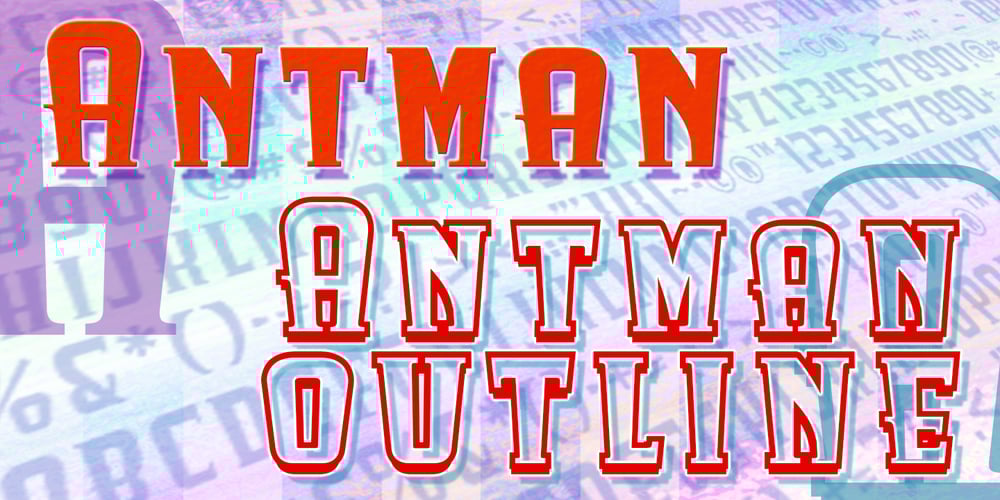
Antman Font Family was designed by James A. Lebbad and published by Lebbad Design. Antman contains 2 styles and family package options. Antman is a bold serif font consisting of caps and smallcaps. Wide letterforms taper toward the bottom of each character to give this font a retro vintage feel.